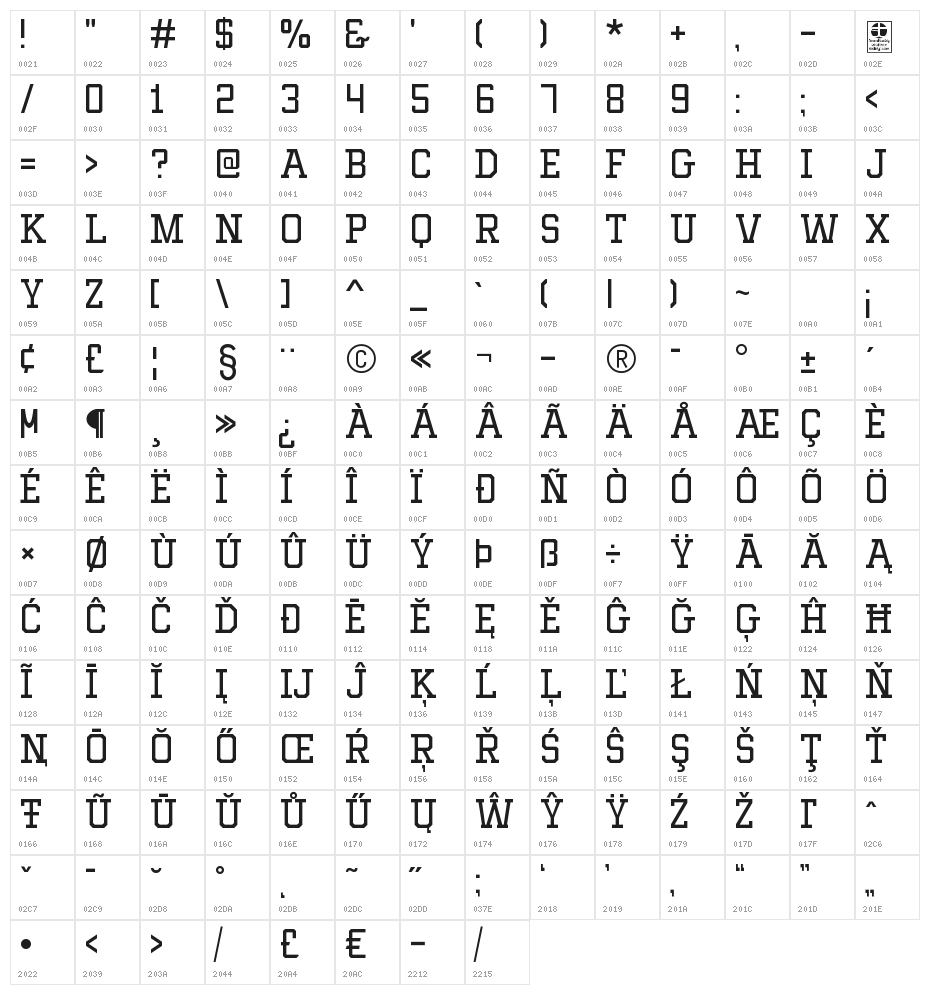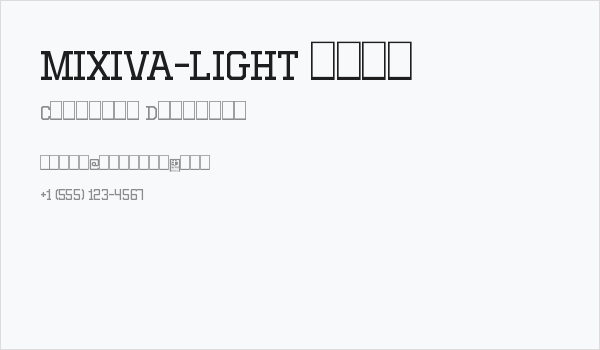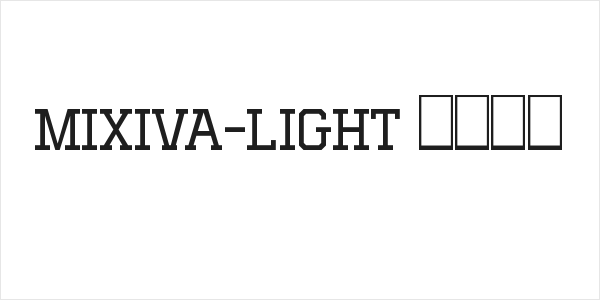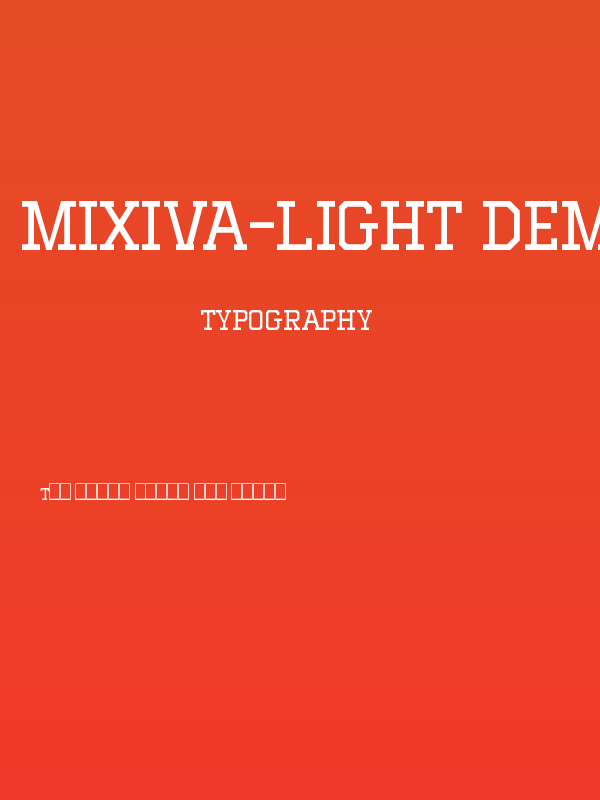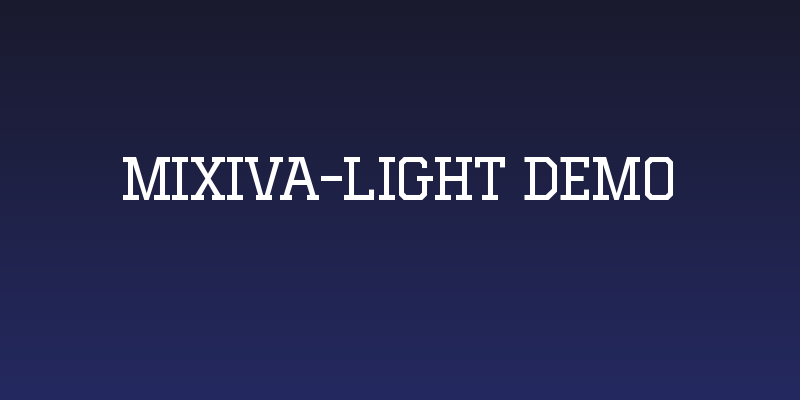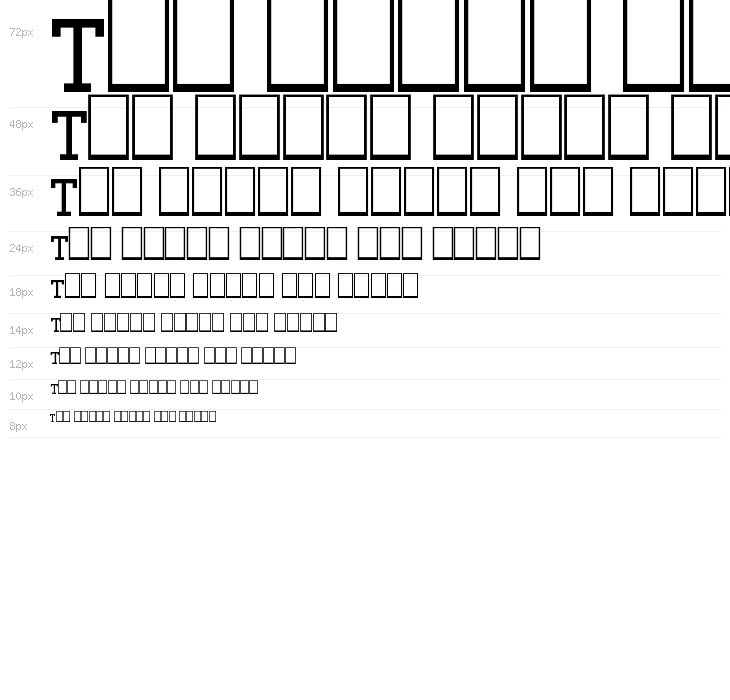
MIXIVA-LIGHT demo Font
MIXIVA-LIGHT demo Description
This font features a bold, geometric design with a strong presence. The uppercase letters are structured with a uniform width and height, giving a sense of stability and modernity. The numerals are equally bold, maintaining the geometric style, which ensures readability and impact. The special characters are crafted to match the overall aesthetic, making them suitable for various design purposes. The font's clean lines and consistent stroke weight make it ideal for projects that require a modern and assertive look.
| Proposed Projects | Ideal for branding, headlines, posters, and digital media where a strong visual impact is needed. |